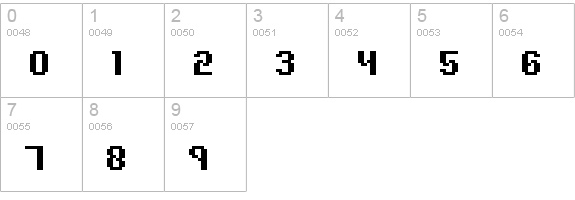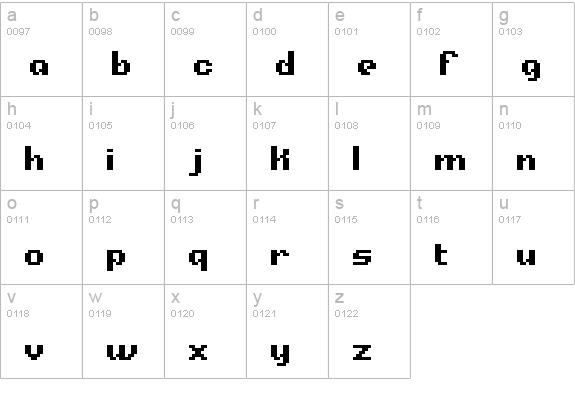
Alpha Beta BRK Font Details
Introducing Alpha Beta BRK font, a sleek and modern typeface perfect for a wide range of design projects. With its clean lines and bold presence, Alpha Beta BRK font exudes confidence and sophistication. This versatile font is ideal for branding, headlines, posters, and more. What sets Alpha Beta BRK font apart is not only its striking design but also the fact that it is available for free! That's right, you can download Alpha Beta BRK font for no cost at FontsMarket.com. Don't miss out on this opportunity to enhance your designs with this stunning typeface. Download Alpha Beta BRK font today and take your projects to the next level!